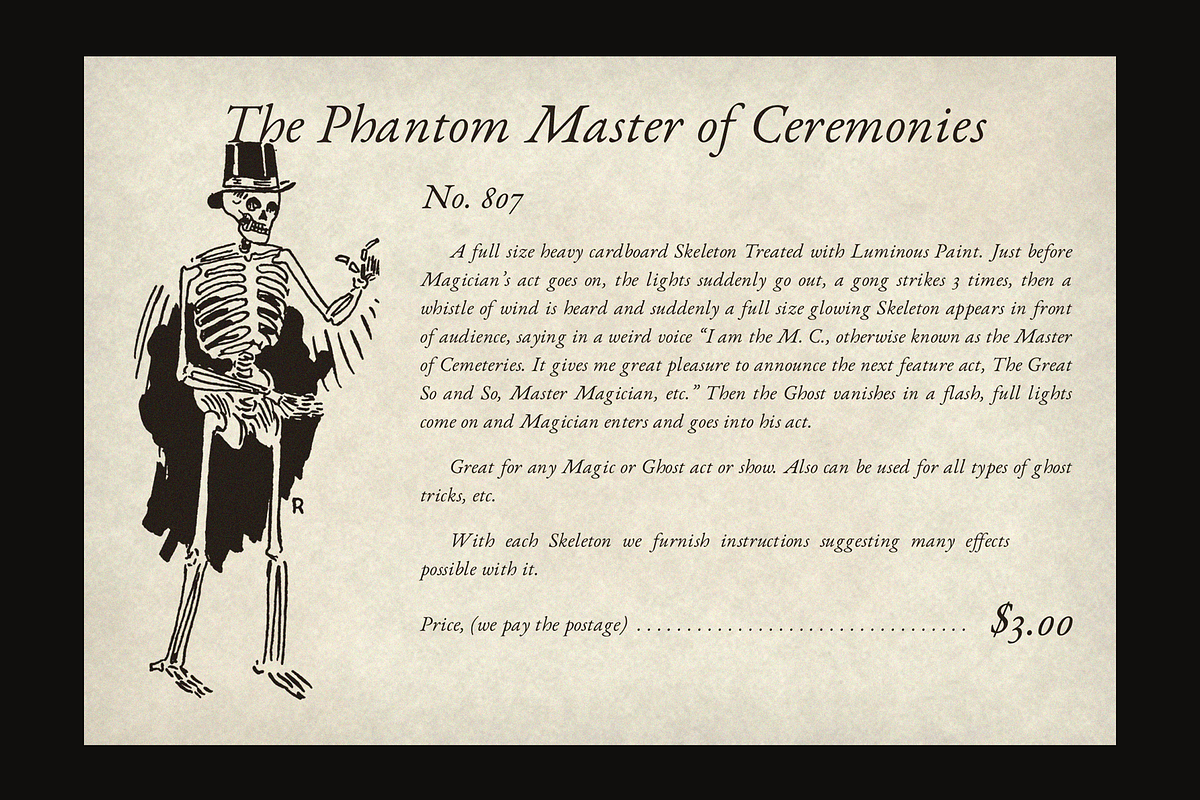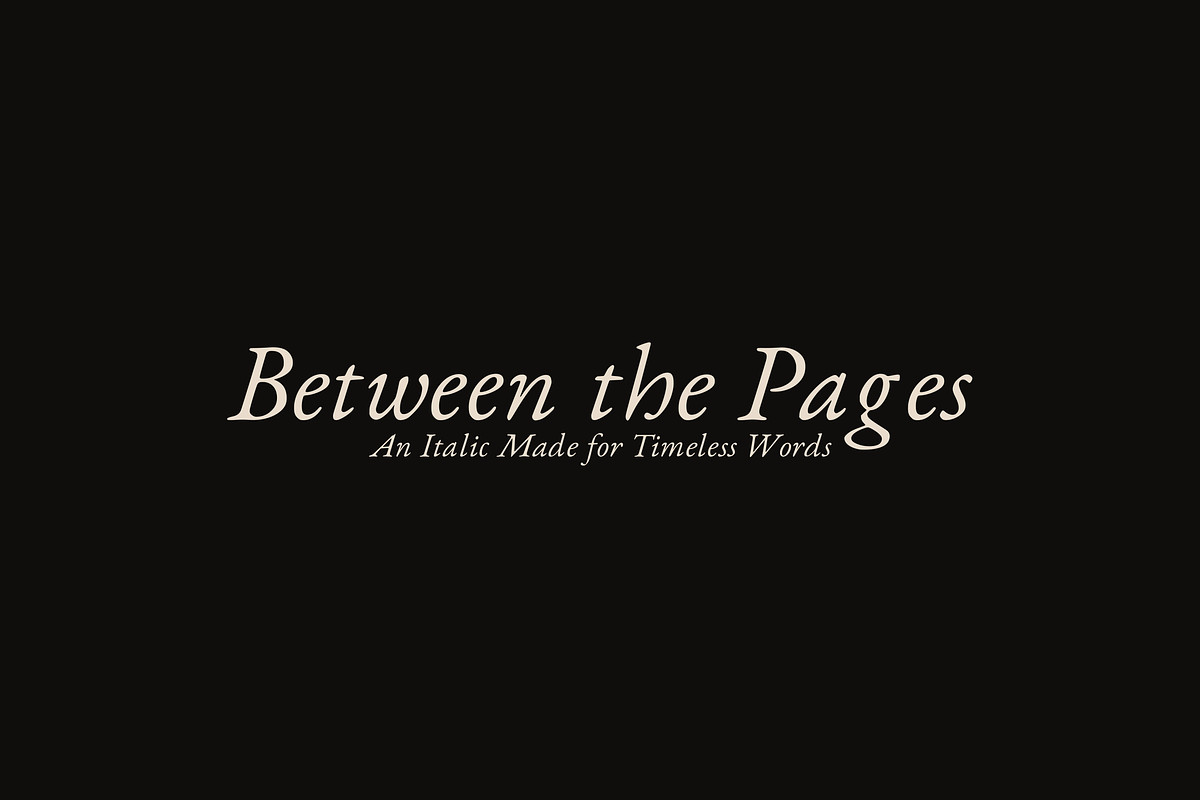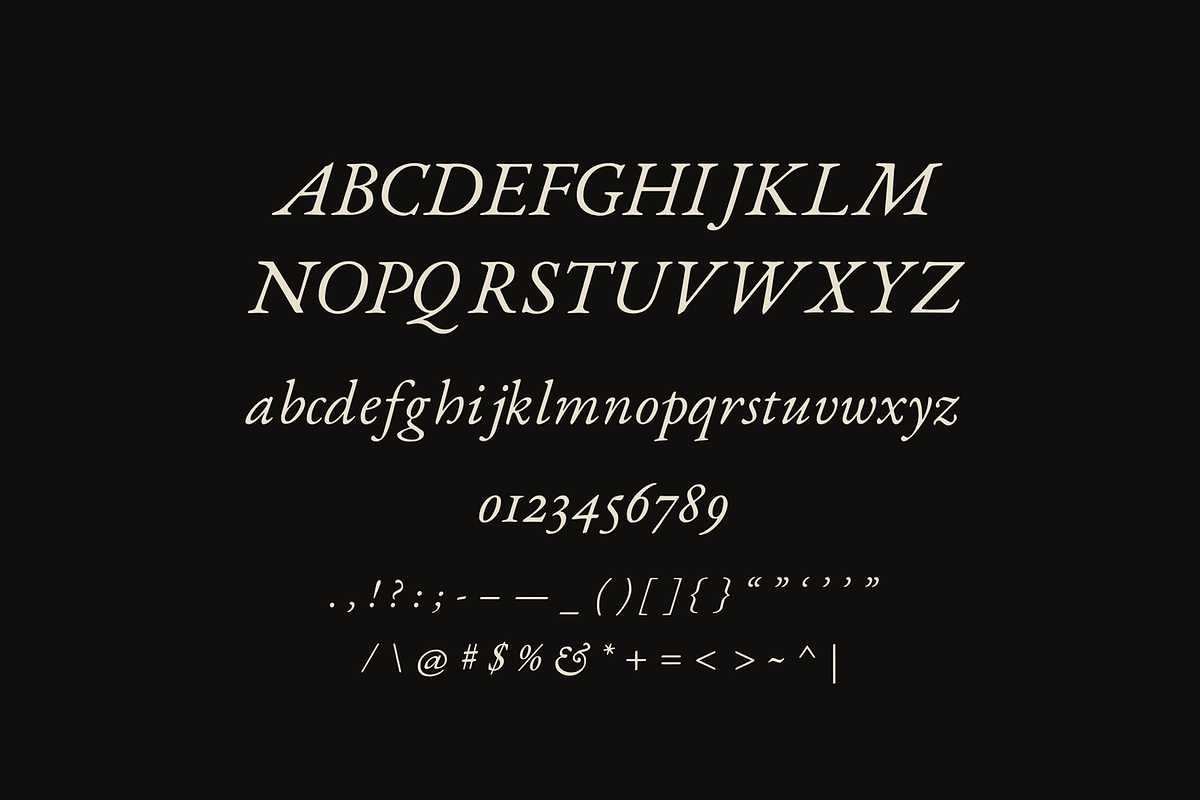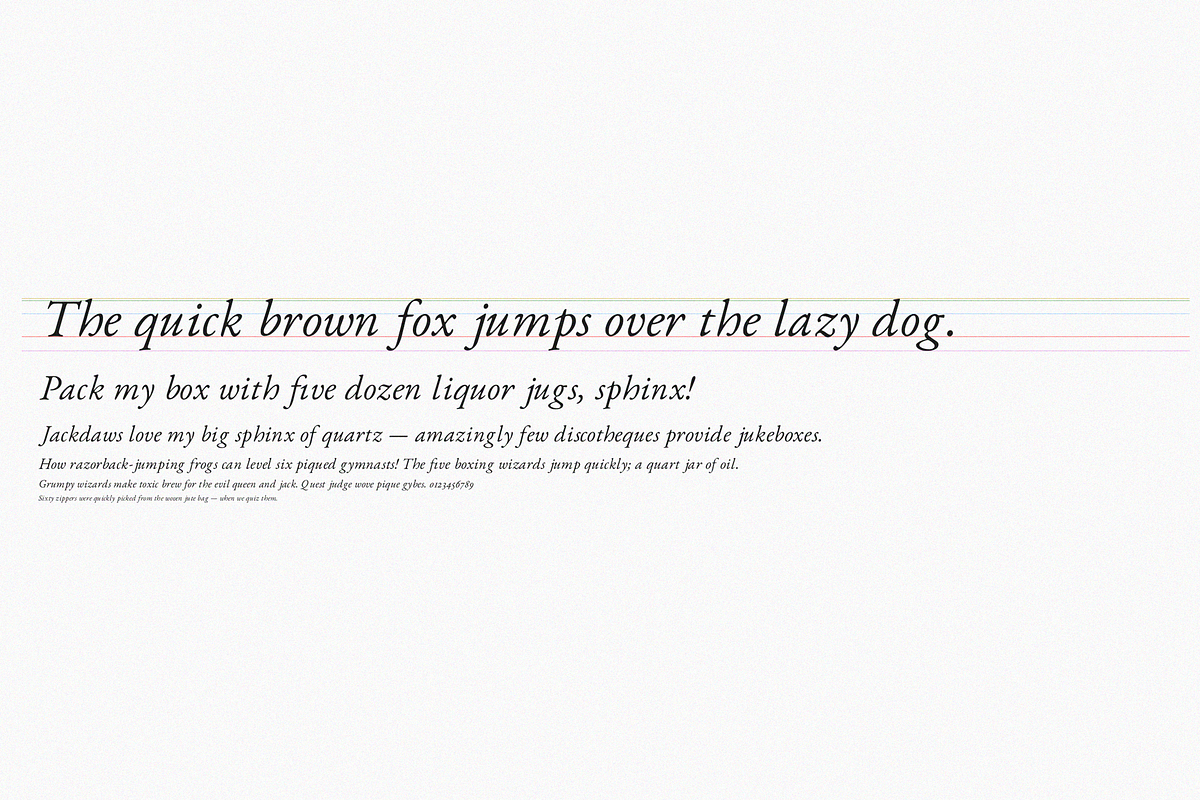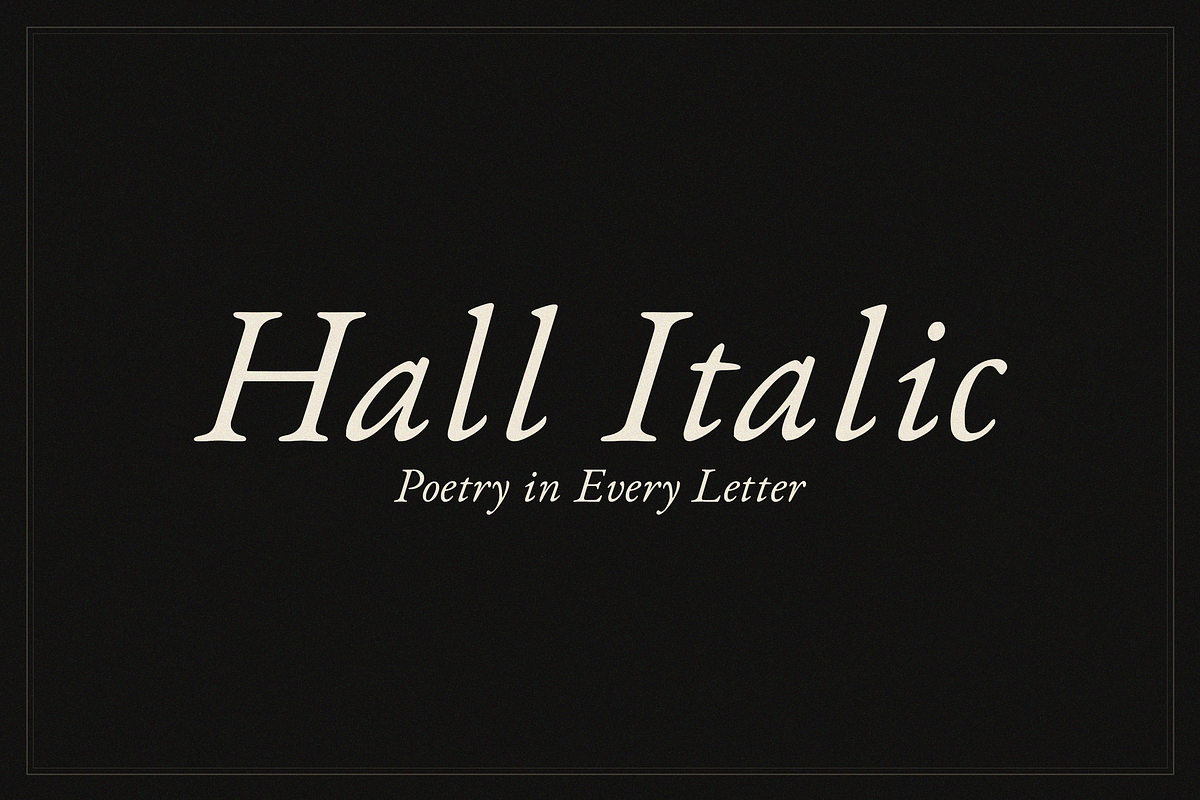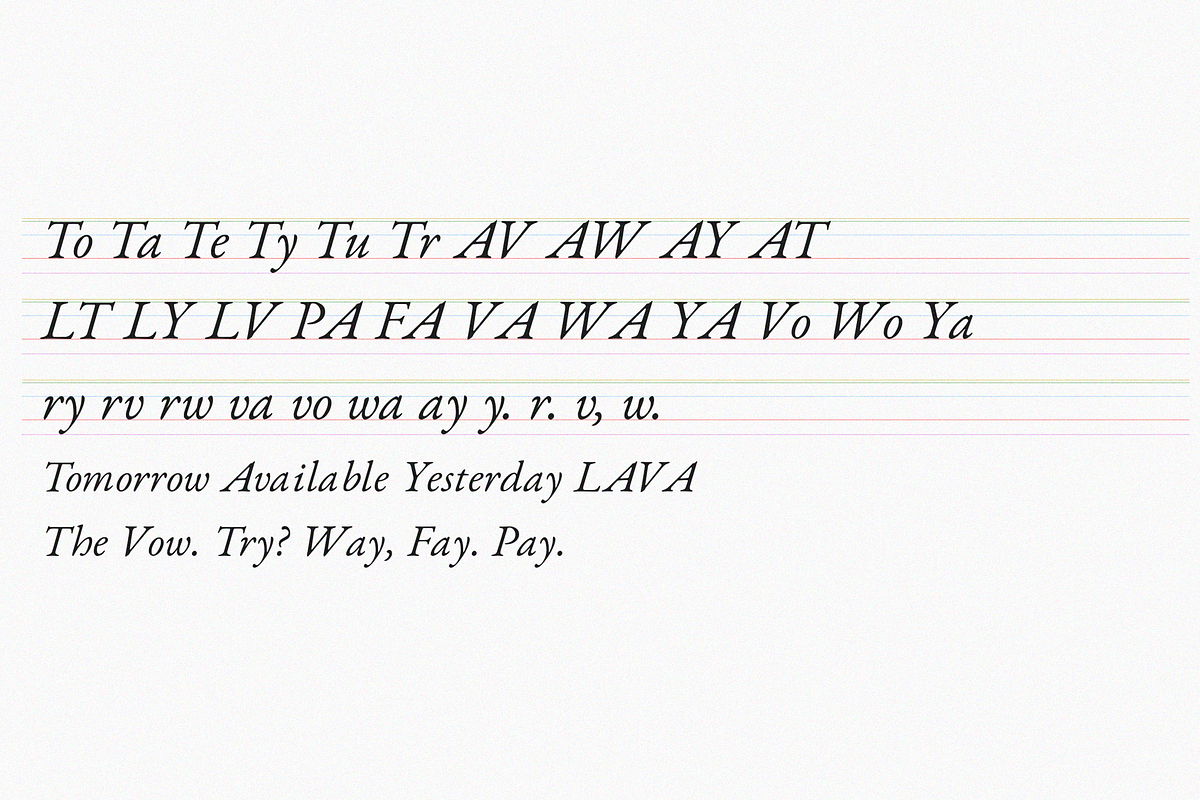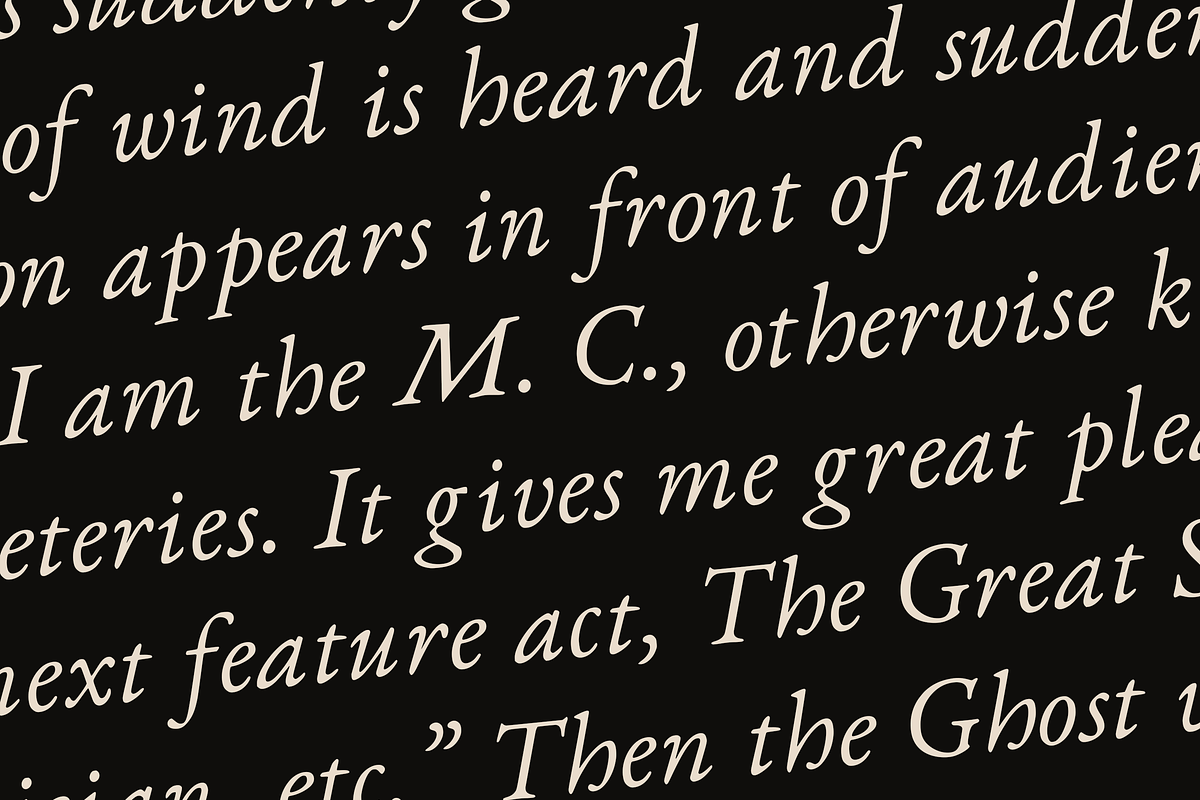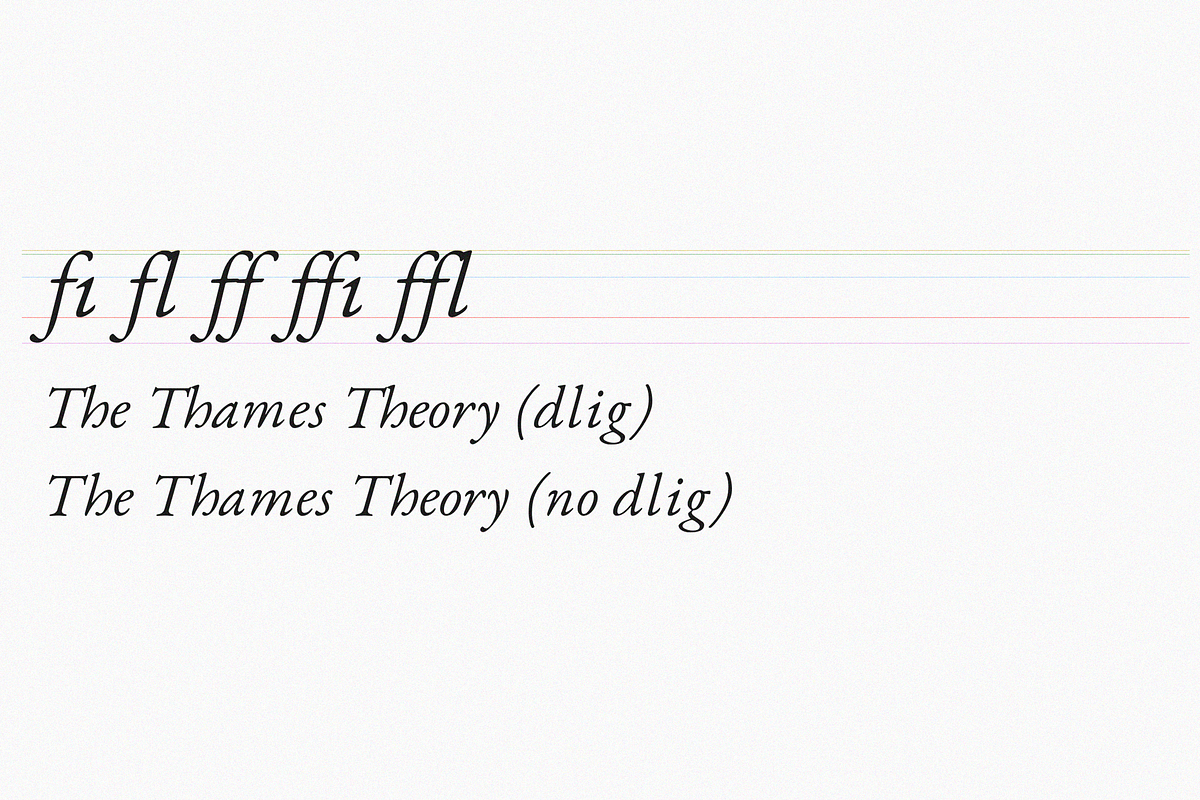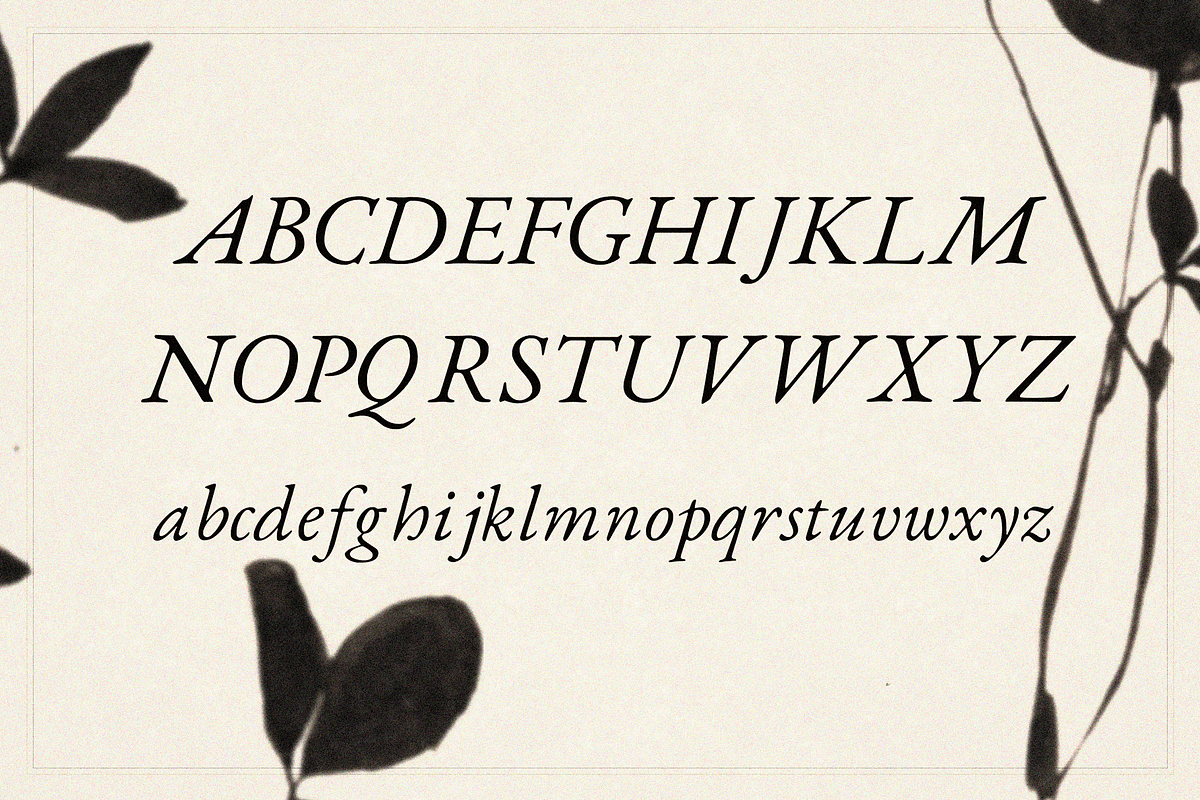
Hall Italic - Typeface
Hall Italic is an elegant historical-inspired typeface influenced by the graceful lettering of Norman P. Hall, an early twentieth-century designer of letters. Its refined proportions, delicate curves, and gently slanted forms capture the quiet beauty of traditional pen-drawn italics while remaining clean and versatile for contemporary design.
The uppercase letters feel stately and editorial, while the lowercase characters are fluid, expressive, and naturally rhythmic. Subtle stroke contrast, distinctive terminals, and beautifully shaped old-style figures give Hall Italic an authentic literary character—perfect for designs that need romance, sophistication, and a touch of history.
Hall Italic is especially suited for:
Editorial titles and magazine layouts
Poetry books and literary projects
Wedding invitations and stationery
Luxury branding and packaging
Logos, monograms, and signatures
Posters, quotes, and social media graphics
The character set includes uppercase and lowercase letters, old-style numerals, punctuation, and essential symbols.
Hall Italic brings the elegance of early twentieth-century lettering into a timeless digital typeface, poetry in every letter.